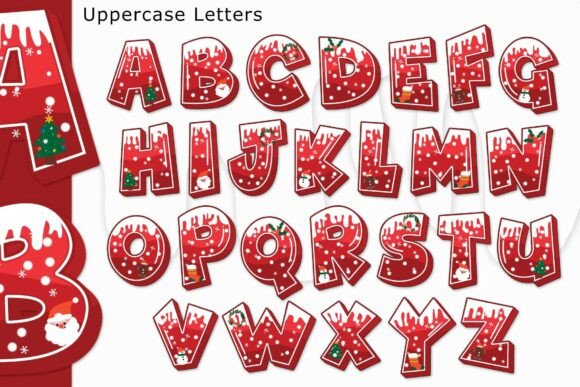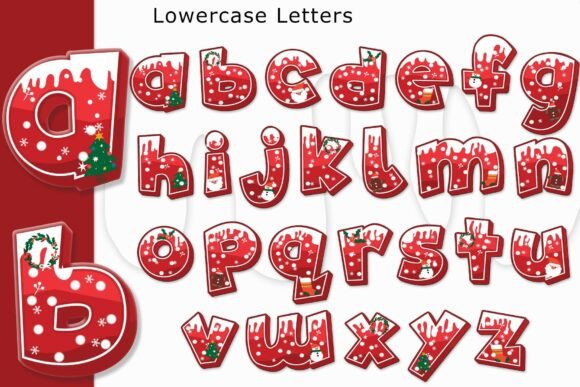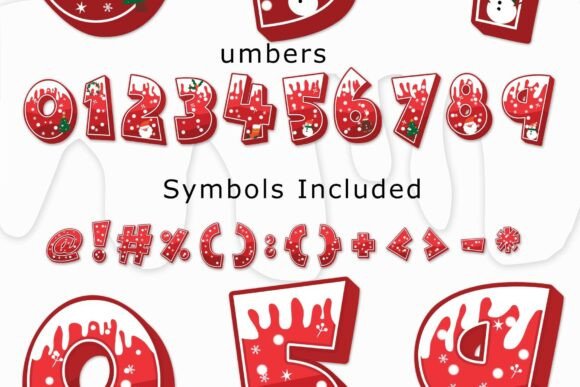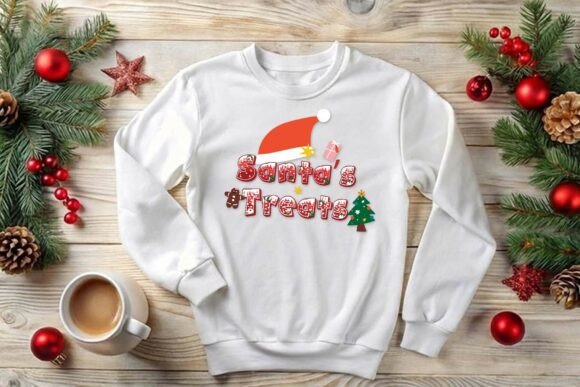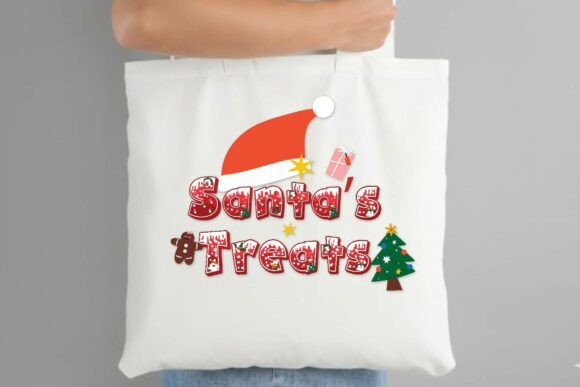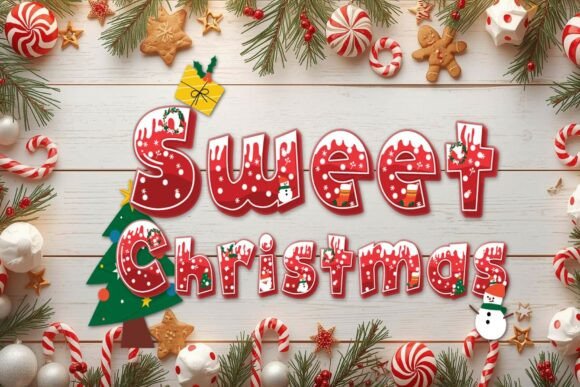
Introduction to Redmerrypop Font
It’s that time of the year when our creative spirits get into the holiday mood, and we can’t help but think of festive designs that bring joy to everyone around us. Imagine you’re working on a Christmas project, and you need a font that screams holiday cheer. That’s where Redmerrypop Font comes in – a delightful display typeface that’s sure to make your designs stand out.
As a designer, you’re always on the lookout for high-quality design resources that make your creative projects shine. And, what better way to add some sweet Christmas magic to your work than with a free download of the Redmerrypop Font? This charming font is filled with adorable details like snowflakes, tiny gifts, and candy toppings, making every letter feel like a joyful holiday treat. With a transparent background, you can easily use it on various projects, from greeting cards to sublimation products.
Key Features of Redmerrypop Font
- High-quality design resource suitable for creative projects, available for free download.
- Unique, playful style with a transparent background, ideal for adding a touch of whimsy to your designs.
- Includes a wide range of glyphs and characters, making it a versatile font for various design needs.
- Perfect for designers, artists, and writers seeking a distinctive and eye-catching font for their creative projects.
Honest Review: Redmerrypop Font
I recently stumbled upon the Redmerrypop Font, and I must say it’s a fantastic addition to my design resource collection. The high-quality font is perfect for creative projects that require a touch of whimsy and charm.
Here are some things that work well about this font:
- ✨ The Redmerrypop Font has a beautiful, hand-drawn feel that adds a personal touch to any design.
- ✨ The transparent background option allows for easy layering and customization in creative projects.
- ⚠️ The font may not be suitable for professional or formal projects due to its playful and informal style.
Overall, I’m impressed with the Redmerrypop Font, and I think it’s a great addition to any designer’s toolkit. It’s perfect for creative projects that require a touch of personality and whimsy. Give it a try and see how it can elevate your designs!
Tips for Getting the Most Out of Redmerrypop Font
To get the most out of the Redmerrypop Font, experiment with different font sizes, colors, and styles. You can also use it in combination with other design elements, such as graphics and images, to create a cohesive and visually appealing design.
Common Use Cases for Redmerrypop Font
The Redmerrypop Font is a versatile design resource that can be used in a variety of creative projects, including logos, brochures, business cards, and social media graphics. Its high-quality design and transparent background make it perfect for designers looking to add a touch of sophistication to their work.
Yes, the Redmerrypop Font is designed to work well with transparent backgrounds. Since it has a transparent background, you can easily use it on top of images or other design elements without worrying about any unwanted backgrounds.
Is the Redmerrypop Font suitable for professional design projects?
Yes, the Redmerrypop Font is a high-quality design resource that’s suitable for professional design projects. Its clean and modern design makes it a great choice for a wide range of creative projects, from logos and branding to web design and print materials.